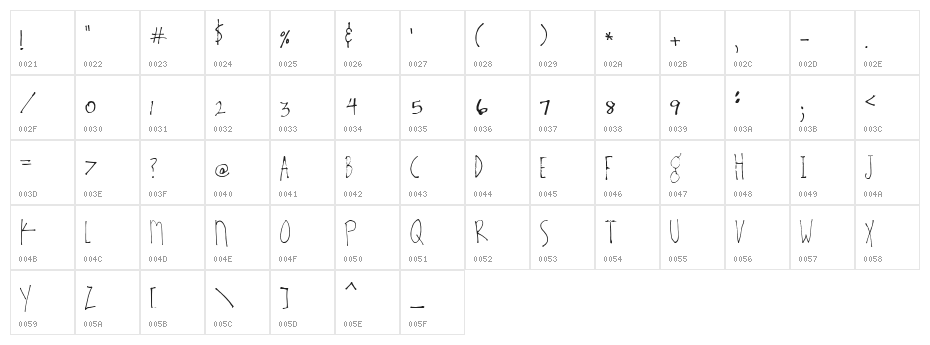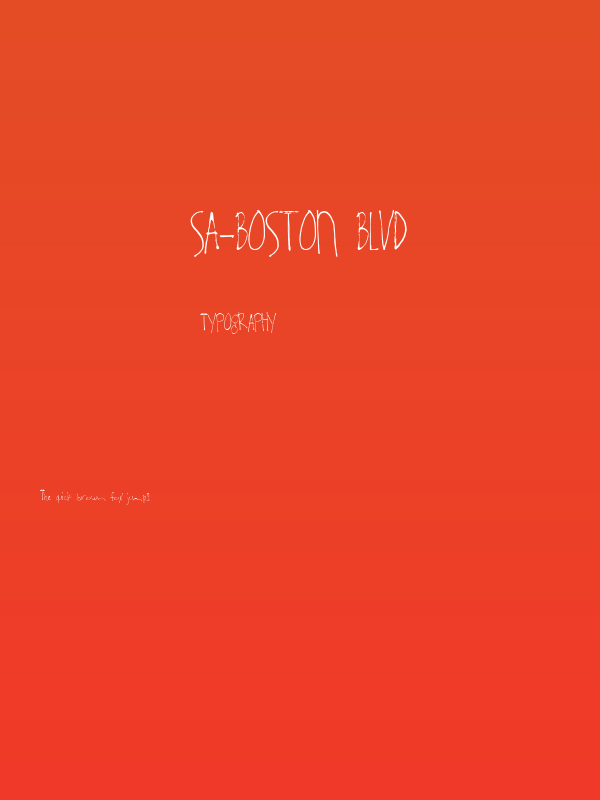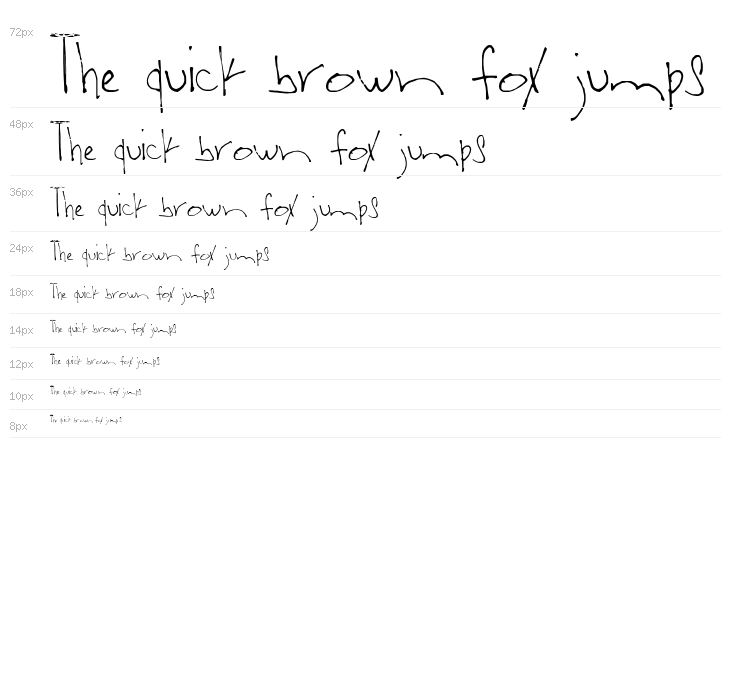
SA-Boston Blvd Font
SA-Boston Blvd Description
This font exhibits a unique, hand-drawn style with an organic and slightly irregular appearance, giving it a personal and artistic touch. The uppercase letters are tall and slender, with varying stroke widths that add to the font's dynamic character. The lowercase letters maintain a consistent style, with playful curves and a casual feel. Numbers are bold and distinct, each with its own quirky flair. The special characters complement the overall aesthetic, maintaining the same hand-crafted quality. This font is perfect for projects that require a personal, creative touch, such as invitations, greeting cards, or artistic posters.
SA-BOSTON-BLVD UPPERCASE
SA-BOSTON-BLVD LOWERCASE
SA-BOSTON-BLVD OTHER CHARS
| Overall Style | Artistic, Handcrafted |
| Use Case | Logos, Artistic projects, Personal branding |
| Proposed Projects | Ideal for creative projects like invitations, greeting cards, artistic posters, and personal branding. |